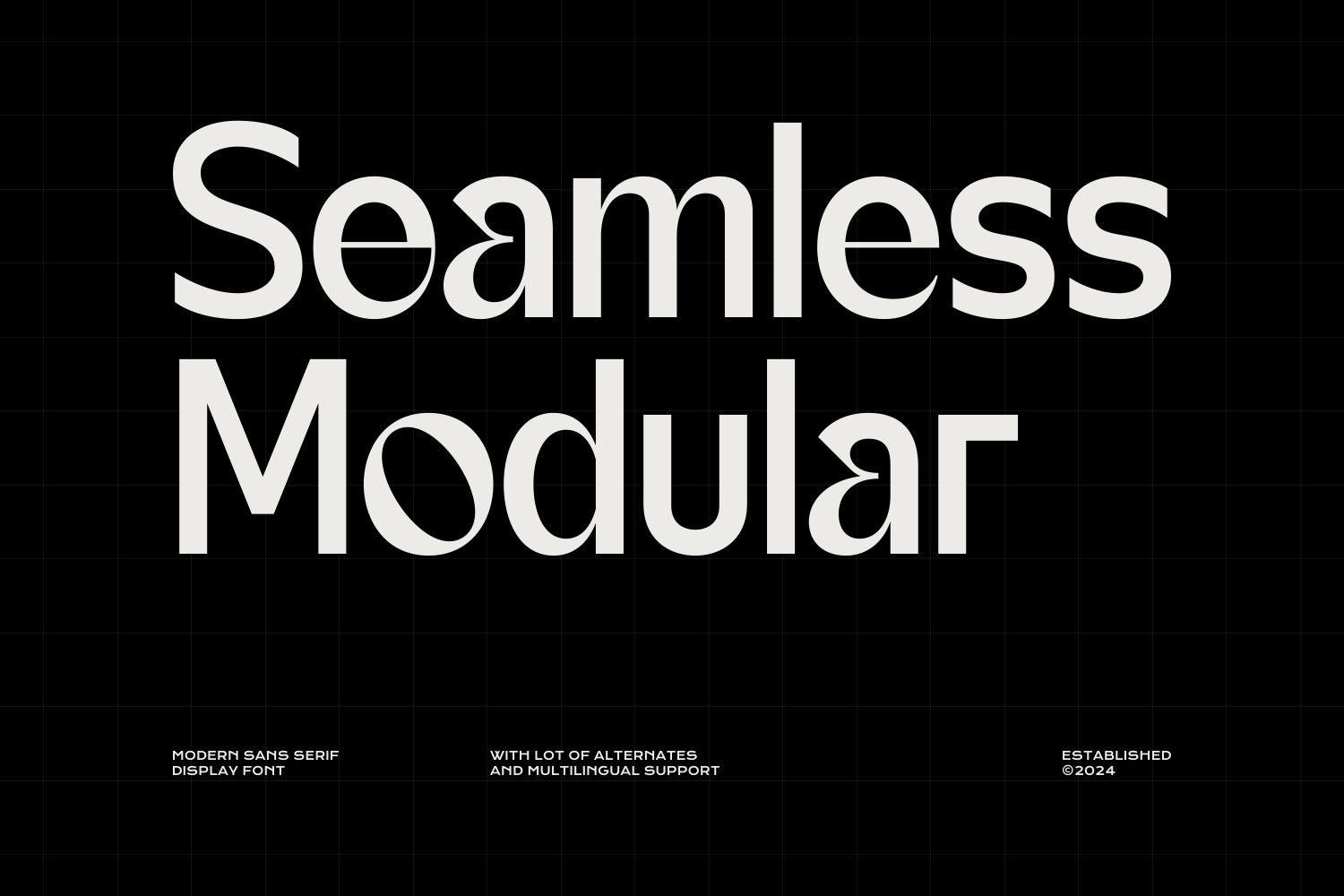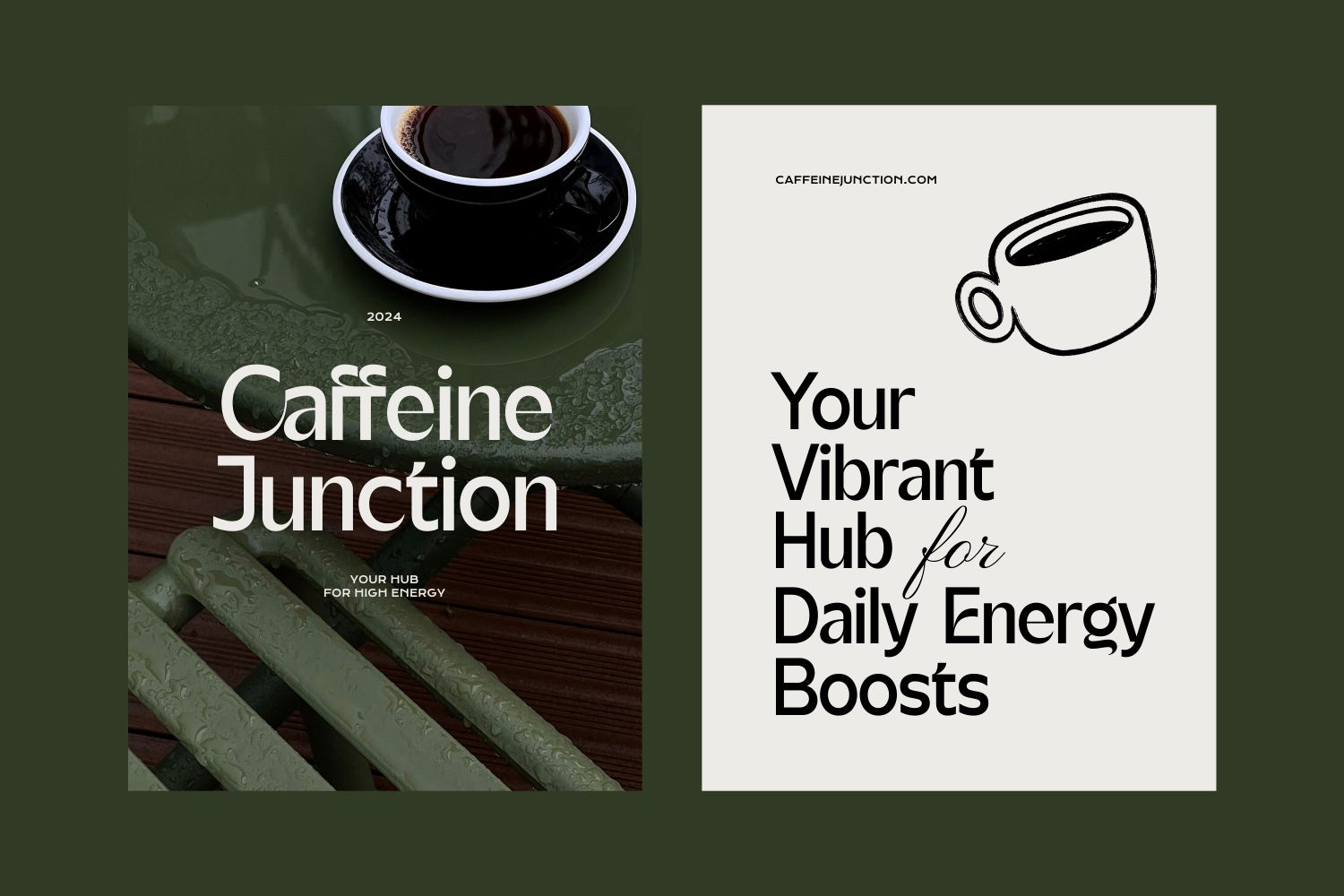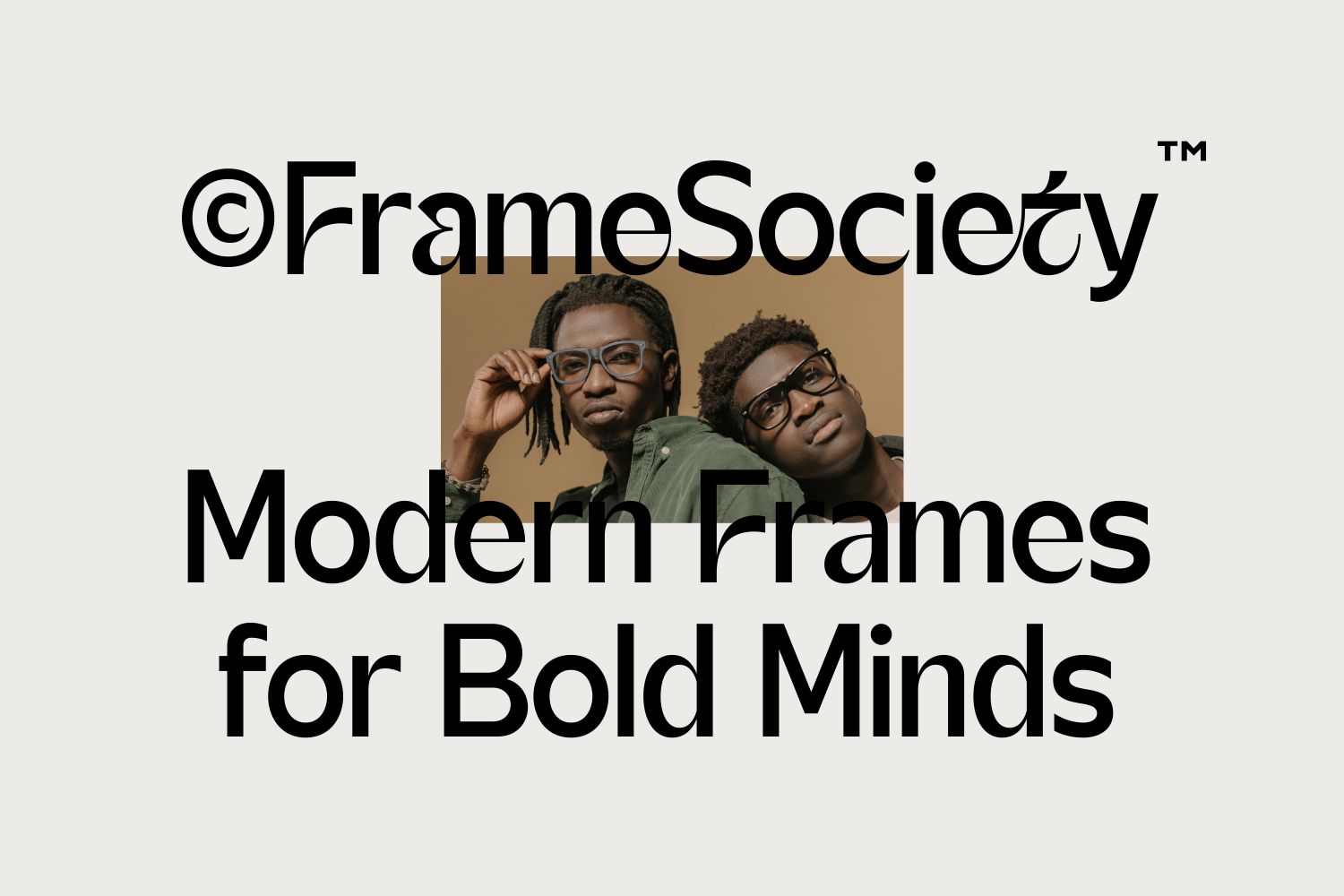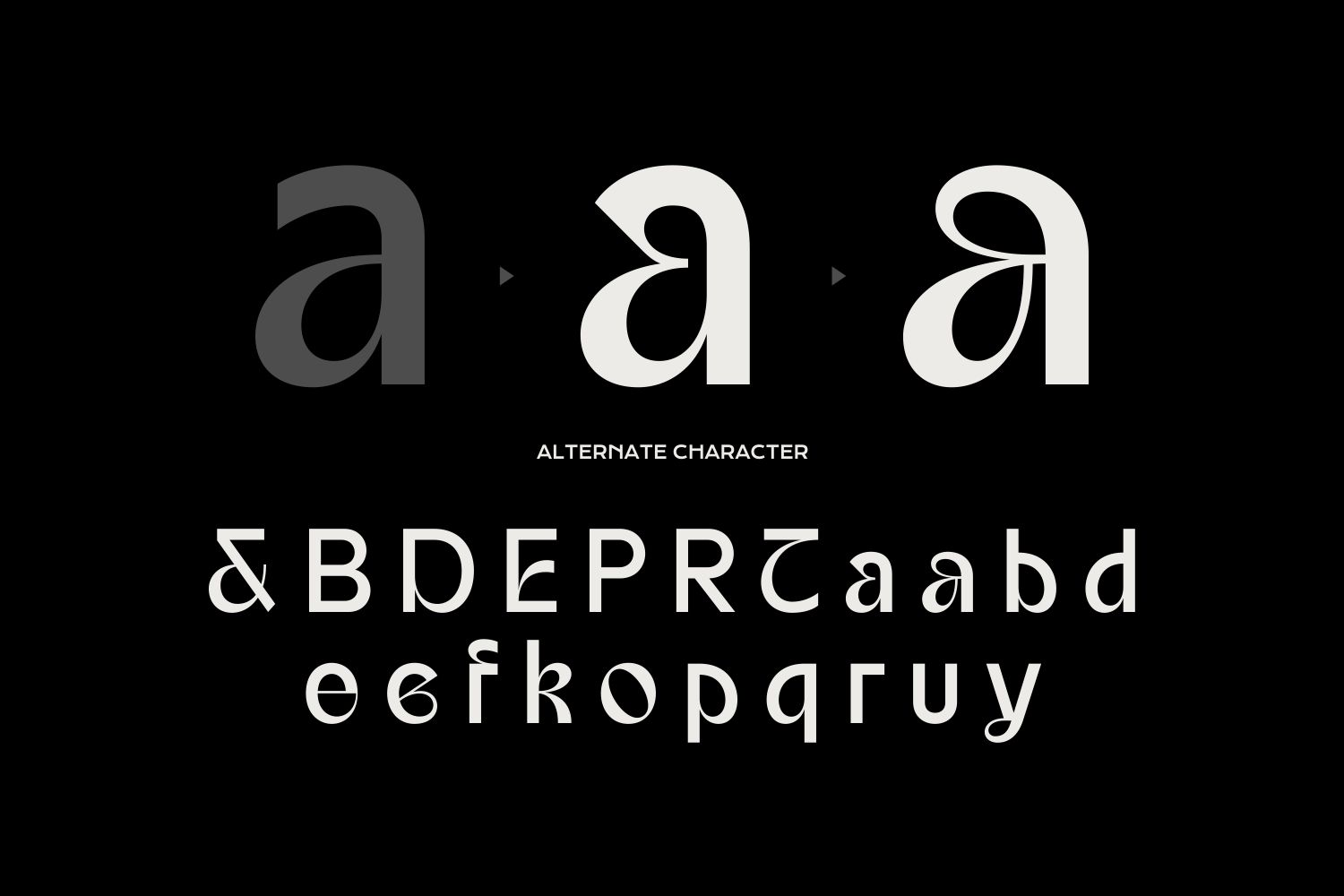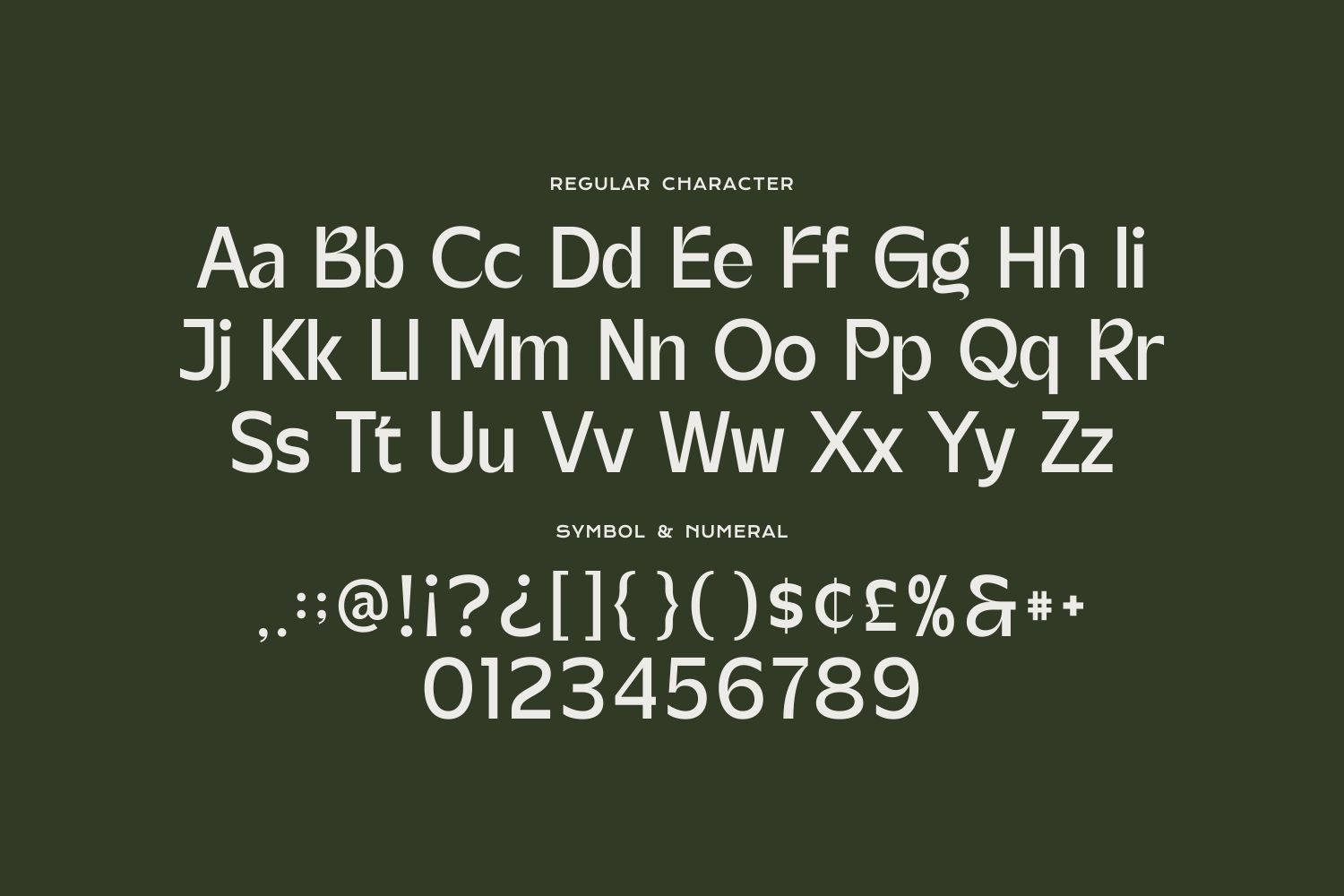
Seamless Modular is a contemporary sans serif display font that blends modern aesthetics with precise geometric structure. Designed for bold branding and editorial design, this font features a modular rhythm and strong visual consistency, while still offering creative freedom through a wide variety of alternate characters and ligatures. Its clean lines and unique glyph treatments give any composition a stylish, forward-thinking impression.
Perfect for creative industries, tech startups, fashion editorials, or minimalist product design, Seamless Modular offers multilingual support and complete typographic control. The thoughtful contrast between its sharp forms and smooth curves makes it highly adaptable. Whether in logos, headlines, or sophisticated layouts.